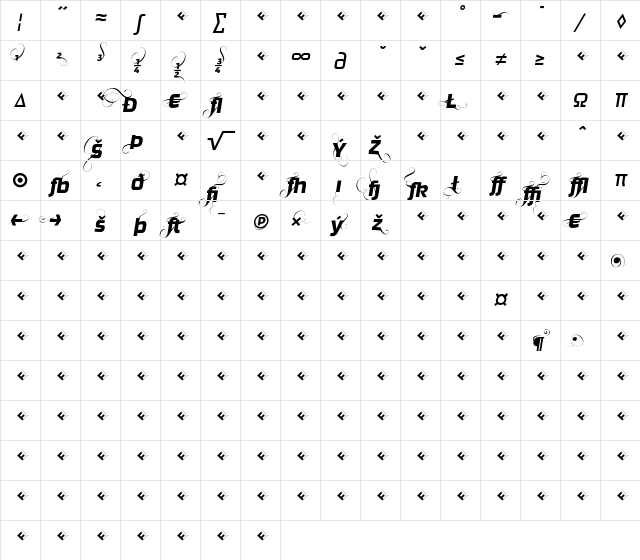
Ginger-RegularFlamboyantExp Regular
Design Context for Ginger-RegularFlamboyantExp Typeface
Ginger-RegularFlamboyantExp is a composed and adaptable typeface that performs quietly and consistently across a wide range of design contexts.
Pro Tip: Use Ginger-RegularFlamboyantExp in both headline and body roles to test its range before committing to a single application.